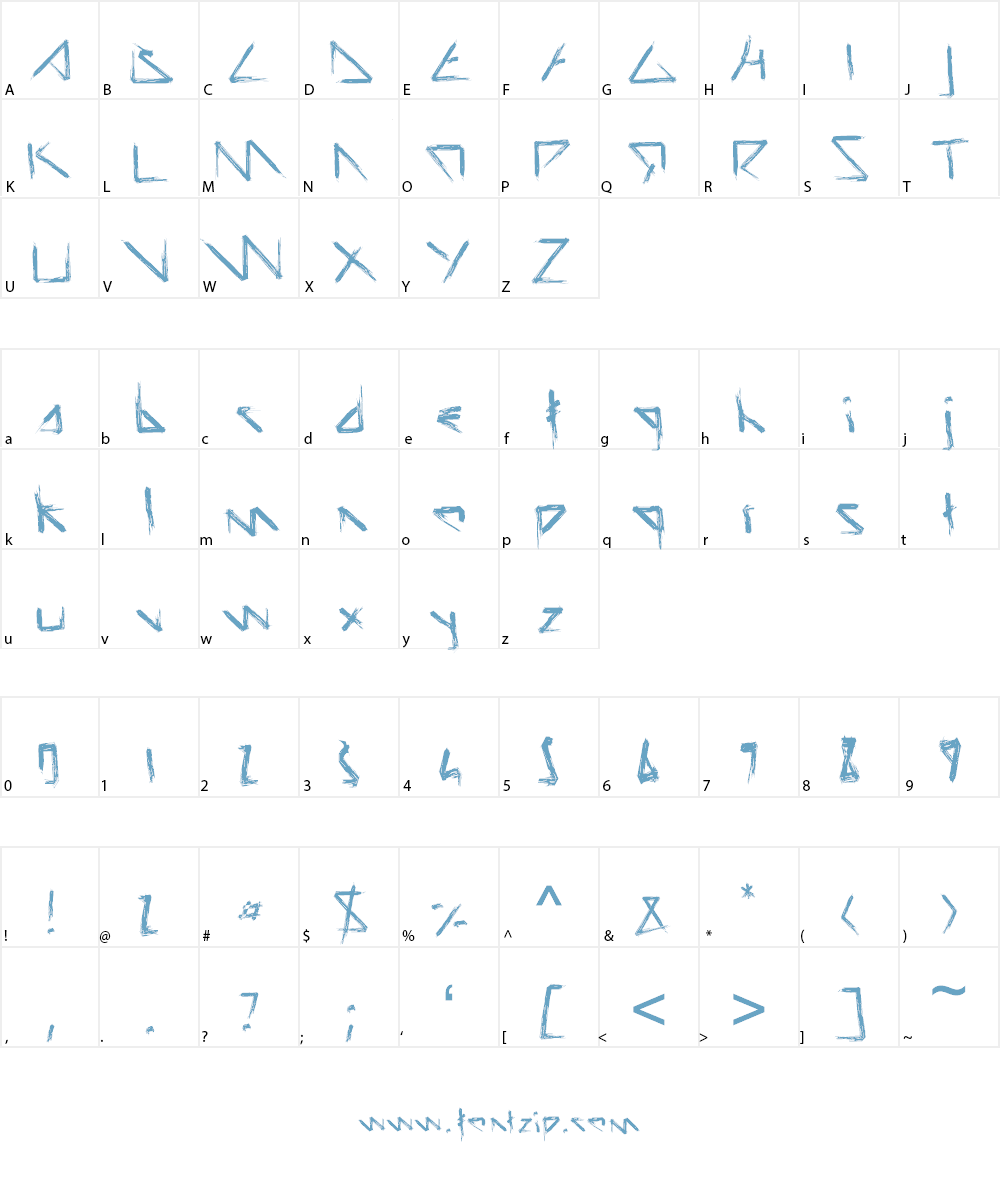
Script Demolition is my firs own designed font from 2005. This was the name of my metal music I was composing that time…I found these files and decided to update this style cause I still love it.